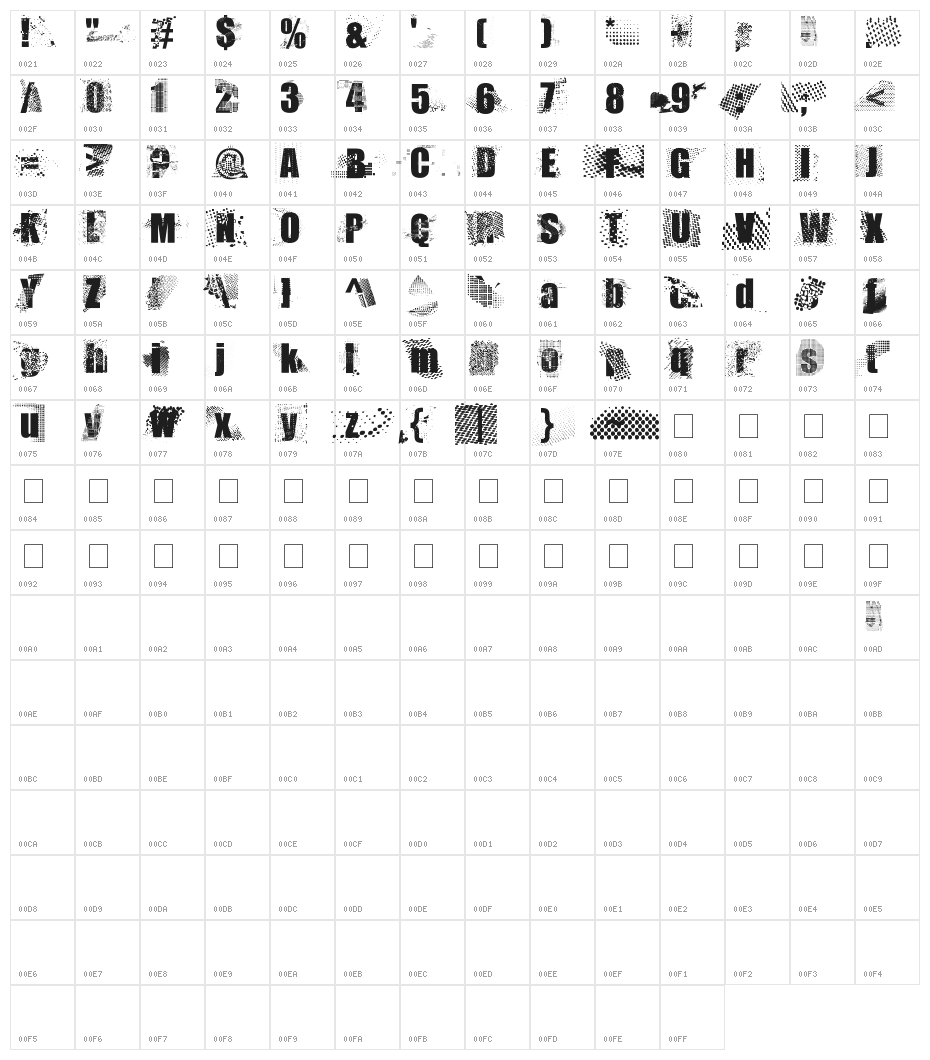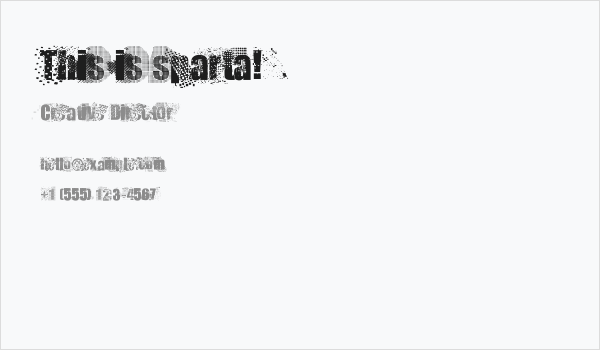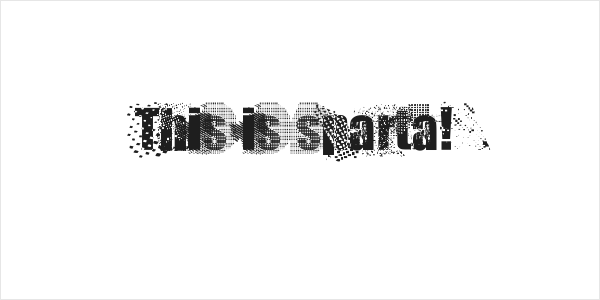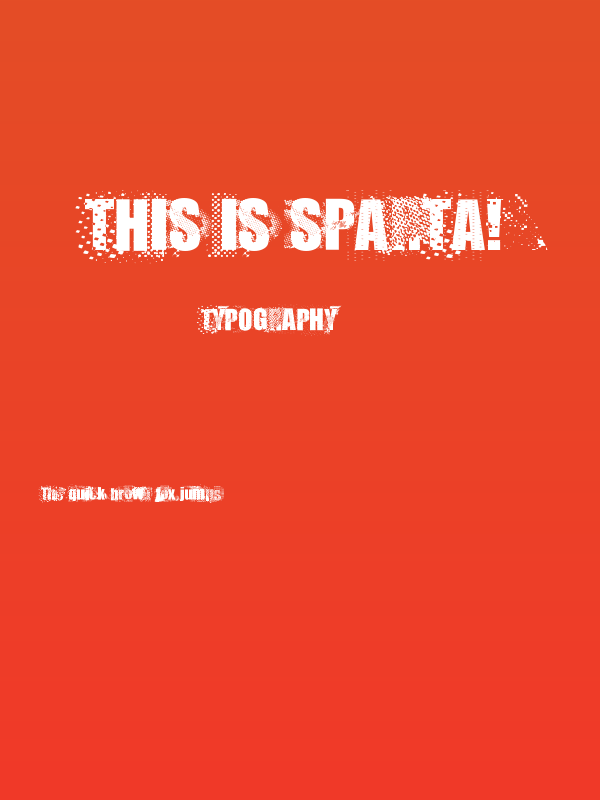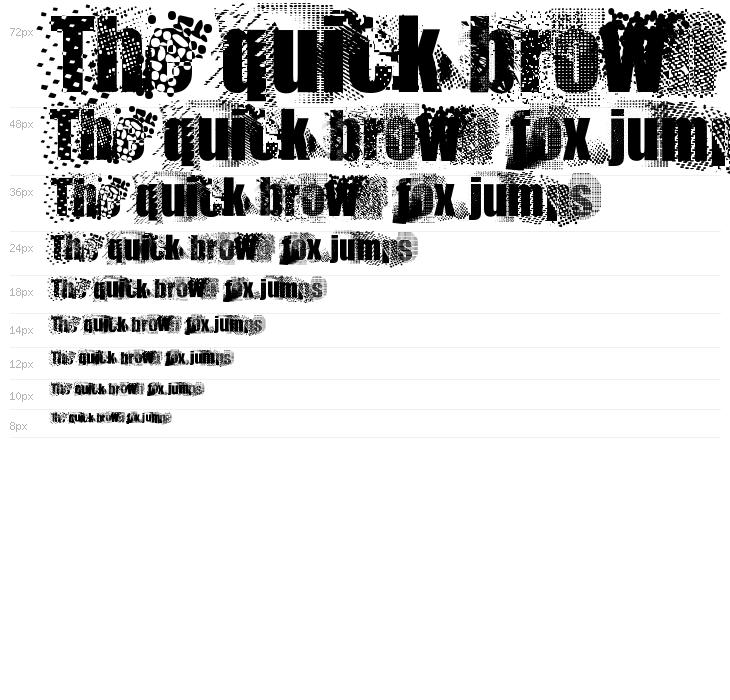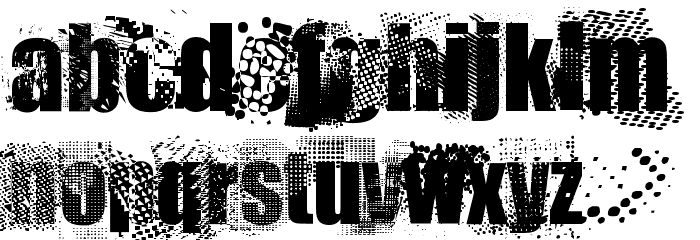
This is sparta! Font
This is sparta! Description
This font features a bold, distressed style with a halftone pattern overlay, giving it a gritty, urban feel. The characters are heavily textured, with a mix of solid and dotted areas that create a dynamic visual effect. The uppercase and lowercase letters maintain a consistent weight, while the numbers and special characters follow the same design theme. This font is highly decorative and makes a strong visual impact, suitable for projects that require a bold statement.
| Overall Style | Urban, Gritty, Bold |
| Proposed Projects | Ideal for posters, album covers, streetwear branding, or any project needing a bold, urban aesthetic. |